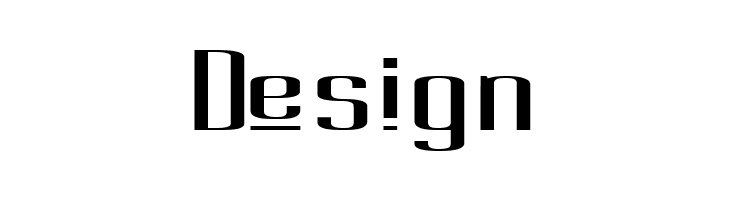
BivoacDarkShadowDemo-DarkShadow Font
- Font: BivoacDarkShadowDemo-DarkShadow
A modern, geometric font with tall, narrow letters and unique character details.